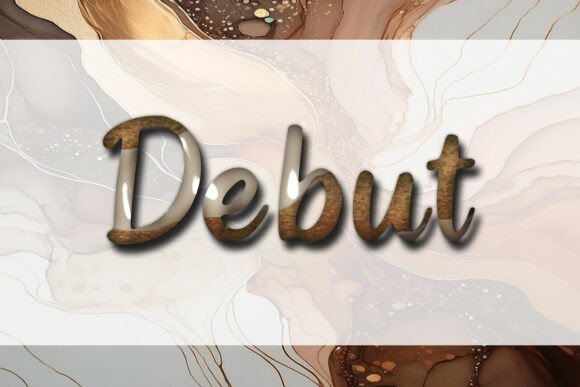
Introducing Debut Font: Elevate Your Design with Sophistication and Elegance
In the world of typography, making a lasting impression is crucial for designers and crafters looking to leave their mark. Debut Font, a sophisticated and modern script typeface, is here to revolutionize your design projects with its fluidity and grace. This elegant font is perfect for those seeking to add a touch of luxury and refinement to their work.
The Essence of Debut Font
Debut Font features smooth, continuous strokes that mimic high-end calligraphy with a contemporary twist. Its unique design allows it to excel in various applications, from luxury branding to elegant invitations and stylized social media graphics. The font’s versatility is further enhanced by its ability to be used as a flat vector or with custom effects, providing a professional and artistic foundation for any project.
Creative Usage and Decoration
Debut Font’s creative possibilities are endless, making it an ideal choice for designers and crafters. Here are a few ways to make the most of this exceptional font:
Luxury Branding
Debut Font is perfect for logos in the beauty, fashion, or high-end lifestyle sectors. Its sophisticated and modern design ensures that your brand stands out from the competition, exuding elegance and refinement. Whether you’re creating a logo for a beauty brand, a fashion label, or a luxury goods provider, Debut Font is the ideal choice.
Custom Effects
Because Debut Font is a clean script, you can easily apply textures and effects to enhance its appearance. Consider adding gold foil, chrome, or a glossy 3D look to give your design an extra touch of sophistication. The font’s versatility allows you to experiment with various effects, ensuring that your design turns out exactly as envisioned.
Pairing
To create a stunning visual effect, pair Debut Font with a minimalist, all-caps sans-serif font. This combination is perfect for high-fashion typography, as it creates a beautiful contrast between the flowing script and the clean, modern sans-serif. The result is a visually appealing design that exudes luxury and sophistication.
Why Choose Debut Font?
Debut Font offers a range of benefits that make it an attractive choice for designers and crafters. Here are a few reasons why you should consider using Debut Font in your next project:
- Unique Design: Debut Font’s smooth, continuous strokes and modern design set it apart from other script typefaces.
- Versatility: The font’s versatility allows it to be used in various applications, from luxury branding to elegant invitations and stylized social media graphics.
- Ease of Use: Debut Font is a clean script, making it easy to apply textures and effects to enhance its appearance.
- Professional and Artistic: The font provides a professional and artistic foundation for any project, ensuring that your design turns out exactly as envisioned.
Debut Font is a sophisticated and modern script typeface that embodies fluidity and grace. Its unique design, versatility, and ease of use make it an ideal choice for designers and crafters looking to add a touch of luxury and refinement to their work. Whether you’re creating a logo, invitation, or social media graphic, Debut Font is the perfect choice for making a lasting impression.